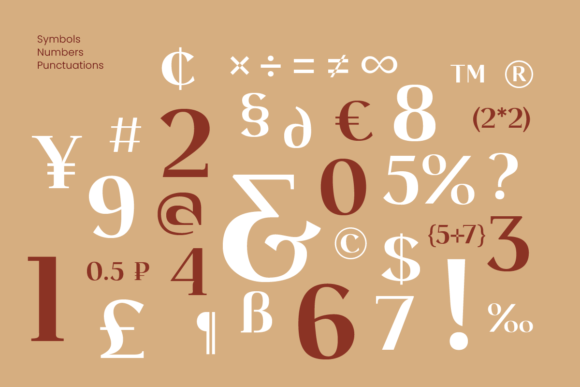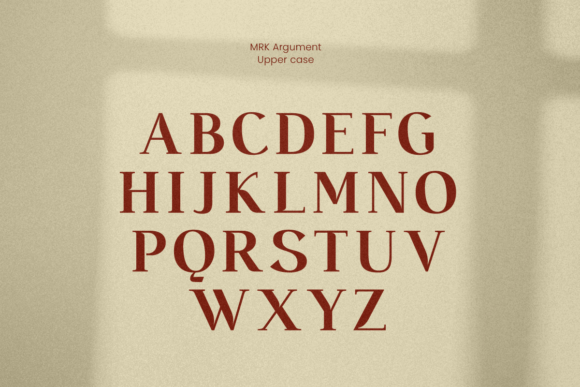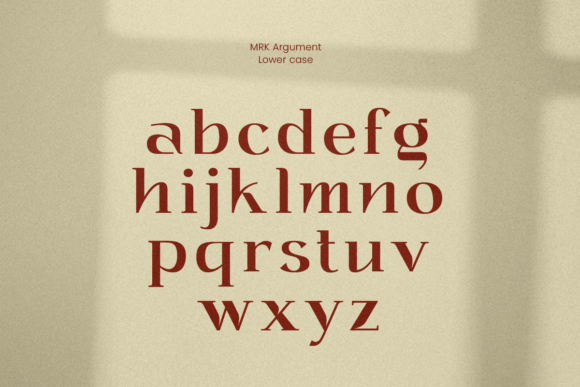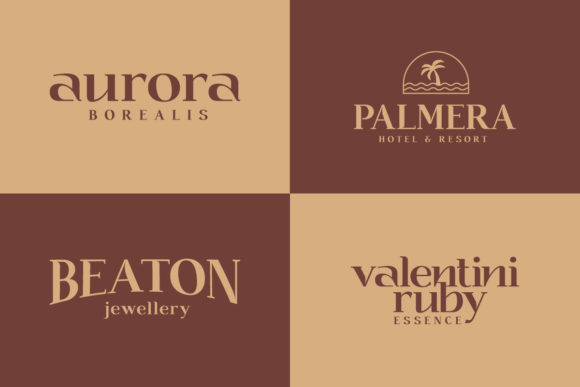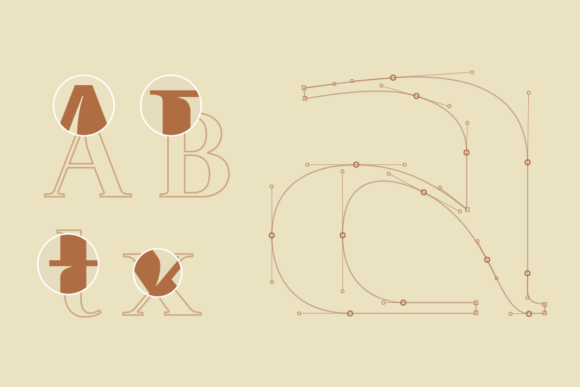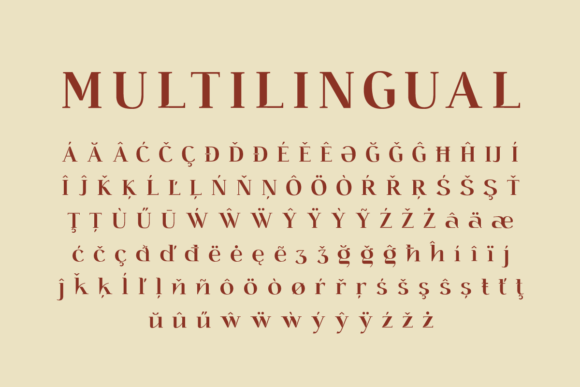
The Elegance of Argument Font: A Designer’s Delight
I still remember the project that led me to discover the Argument font. I was working on a luxury branding campaign for a high-end fashion client, and I was struggling to find the perfect font to convey the elegance and sophistication of their brand. That’s when I stumbled upon Argument, and it instantly became my go-to font for the project. In this article, I’ll share my experience with Argument font, its features, and how to make the most of it in your designs.
An Honest Review of Argument Font
What I Love About Argument Font
- ✨ Elegant and modern design with deeper ink traps and shoulders
- ✅ Exceptional luxury look perfect for high-end branding and headlines
- 💯 Highly legible and versatile for various design applications
- 🎨 Beautifully crafted to add a touch of sophistication to any design
While Argument font is an excellent choice for many design projects, there are a few things to keep in mind:
- 🤔 Limited availability of certain characters and glyphs in some font formats
- ⚠️ May not be suitable for body text due to its display font nature
The Backstory of Argument Font
Argument font was designed with the goal of creating a luxurious and elegant display font that would add a touch of sophistication to any design. The designer aimed to create a font that would be perfect for high-end branding, headlines, and editorial design. With its deeper ink traps and shoulders, Argument font achieves a unique and distinctive look that’s hard to find in other fonts.
Q: What is the best use case for Argument font?
A: Argument font is best suited for high-end branding, luxury headlines, and editorial design.
Q: Can I use Argument font for body text?
A: While Argument font is highly legible, it’s primarily designed as a display font. It’s not recommended for body text due to its elegant and luxurious nature.
Q: Is Argument font suitable for digital use?
A: Yes, Argument font is optimized for digital use and can be used for various digital applications, including websites, social media, and presentations.